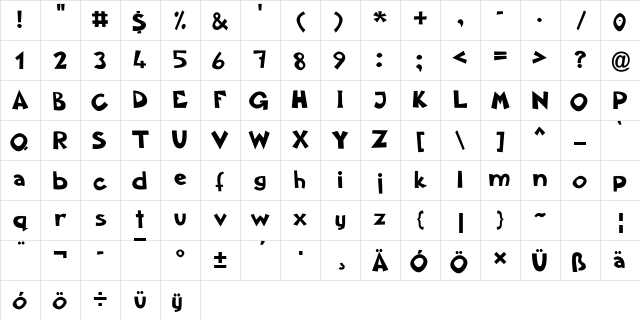
Aklatanic TSO Regular
Design Context for Aklatanic TSO
Aklatanic TSO is a composed and adaptable typeface that performs quietly and consistently across a wide range of design contexts.
Pro Tip: Use Aklatanic TSO in both headline and body roles to test its range before committing to a single application.